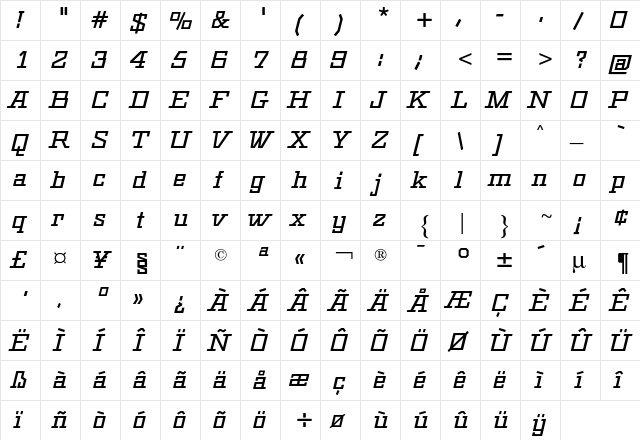
Geometric CG Bold Italic
Design Context for Geometric CG Bold Typeface
Geometric CG Bold is a composed and adaptable typeface that performs quietly and consistently across a wide range of design contexts. Its italic angle brings a sense of urgency and motion to the letterforms. The heavy weight commands attention and anchors typographic hierarchies.